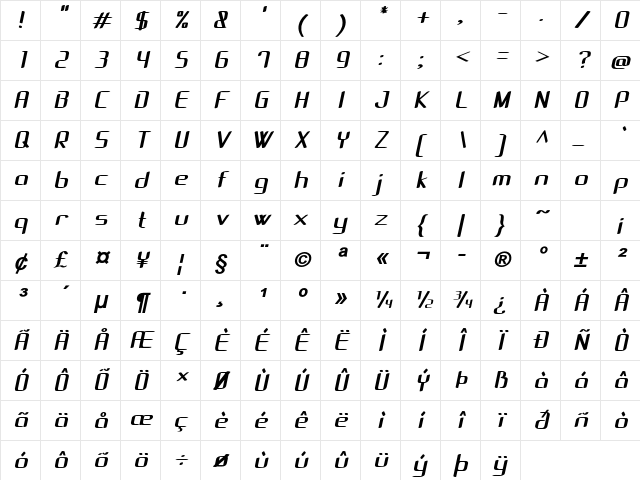
Amped Bold Italic
Amped Family
Design Context for Amped
Amped is a composed and adaptable typeface that performs quietly and consistently across a wide range of design contexts. The slanted form adds forward momentum and visual energy. Its bold stroke weight gives it real presence on the page.
Pro Tip: Use Amped for emphasis, pull quotes, and subheadings where its slanted energy can add rhythm to the layout.